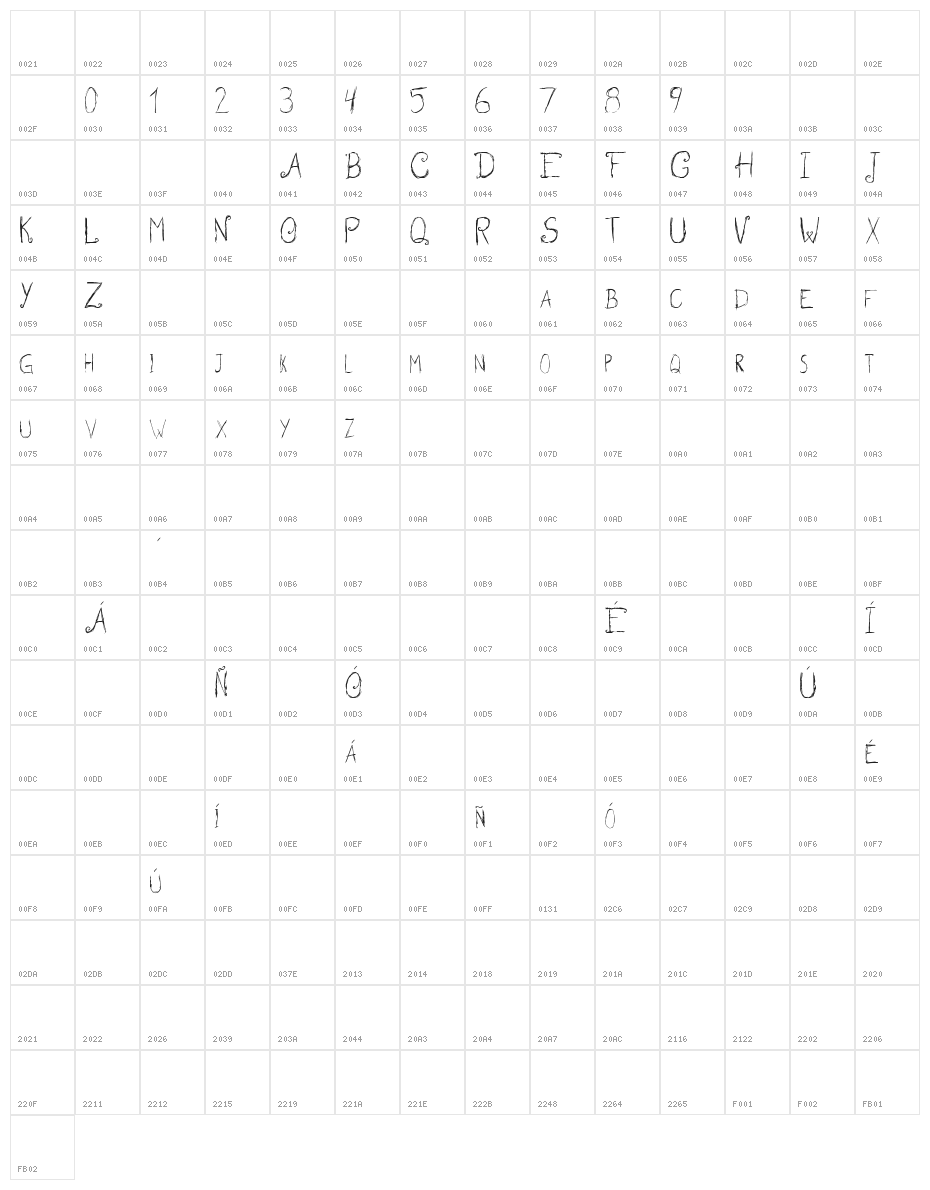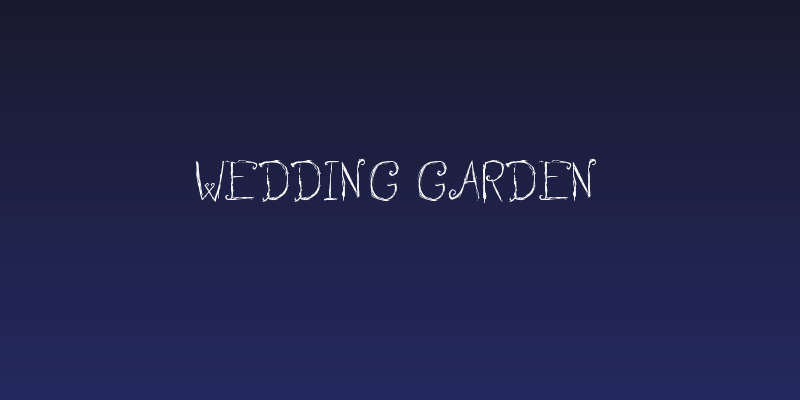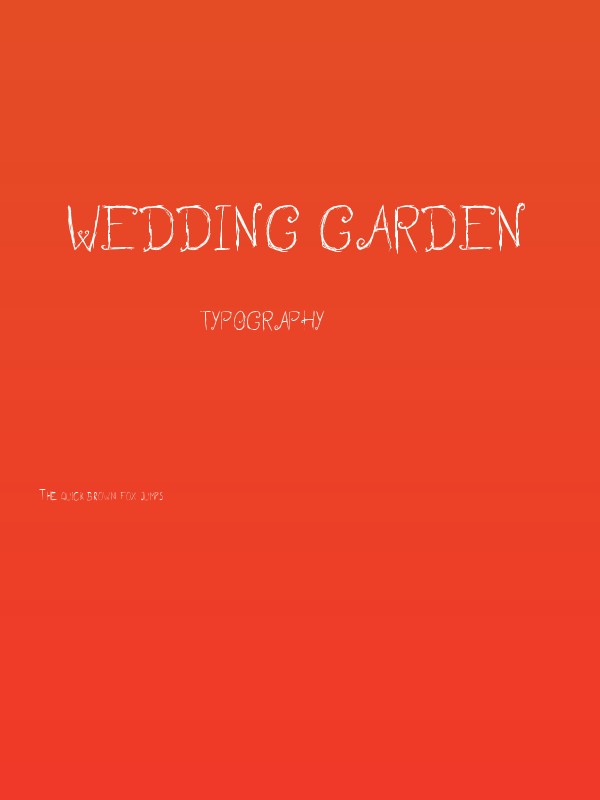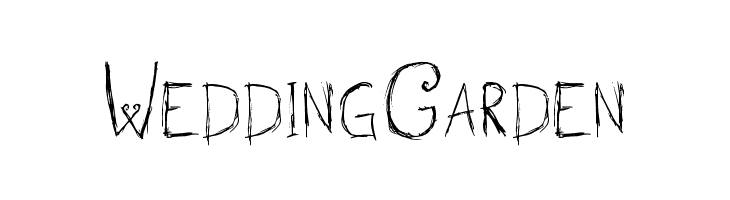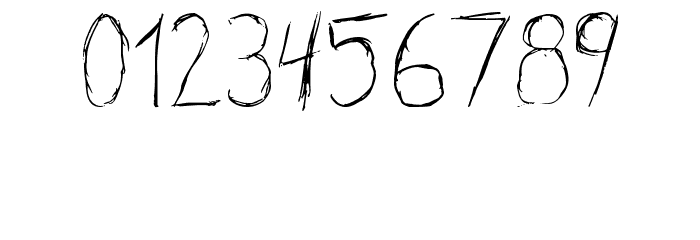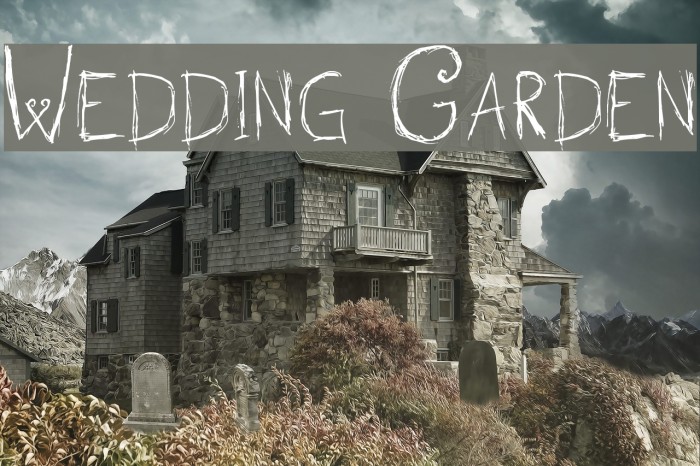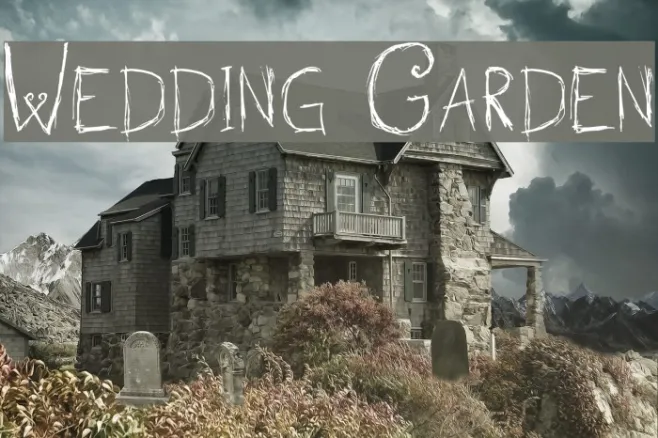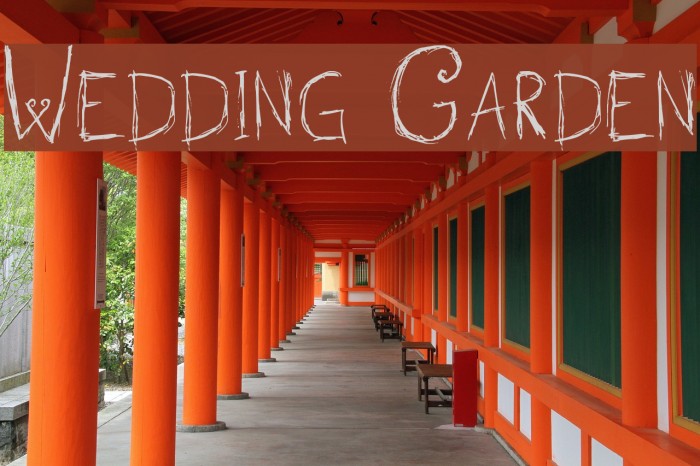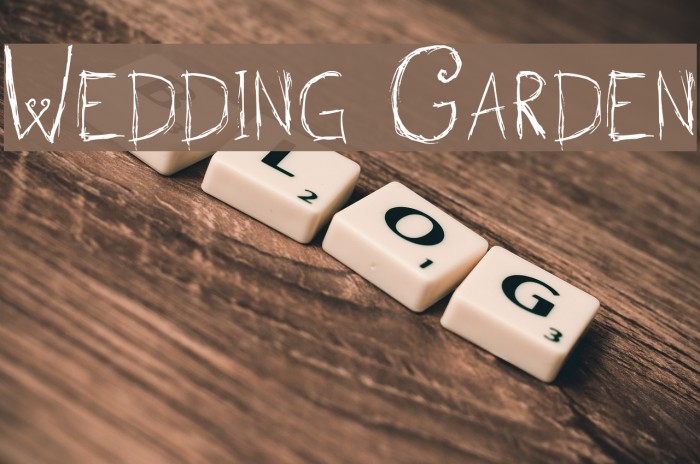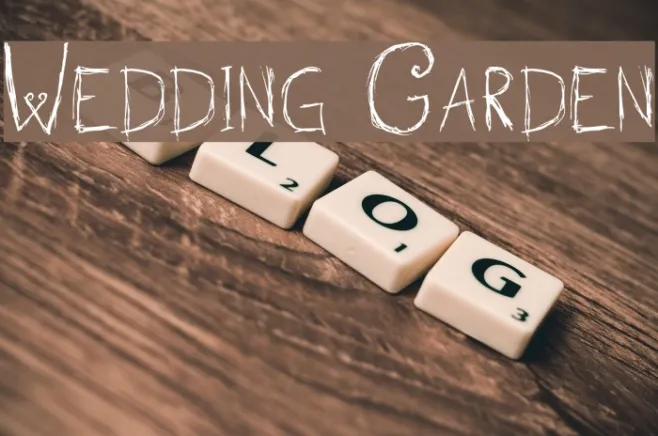
Wedding Garden Font
Wedding Garden Description
This font features a whimsical and organic design, reminiscent of hand-drawn letters with a touch of nature-inspired elegance. The characters have a playful, slightly irregular form, with strokes that mimic the texture of twigs or vines. Each letter is unique, with subtle variations that add to its charm. The uppercase letters are bold and expressive, while the lowercase letters maintain a consistent style, offering a cohesive look. The numbers and special characters follow the same artistic theme, making this font suitable for creative and decorative purposes.